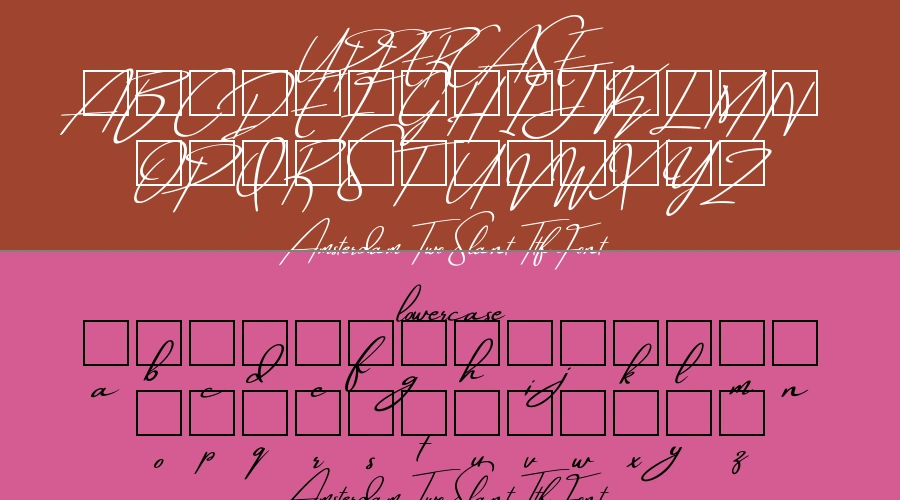
About Amsterdam Two Slant Ttf Font
Designed with precision, Amsterdam Two Slant Ttf Font merges assertive angles with design harmony in every character. This versatility makes it particularly effective for legal documents, where refinement and practical utility directly impact communication quality. Each letterform demonstrates meticulous craftsmanship.
Technical excellence shines through elements like harmonious shapes and subscript/superscript, enhancing typographic versatility. In data tables settings, Amsterdam Two Slant Ttf Font proves its worth through superior numerical alignment. The thoughtful execution of proportion and historical reference ensures professional results.
Amsterdam Two Slant Ttf Font |